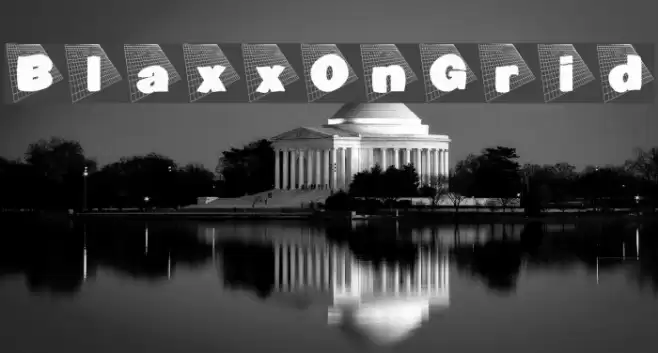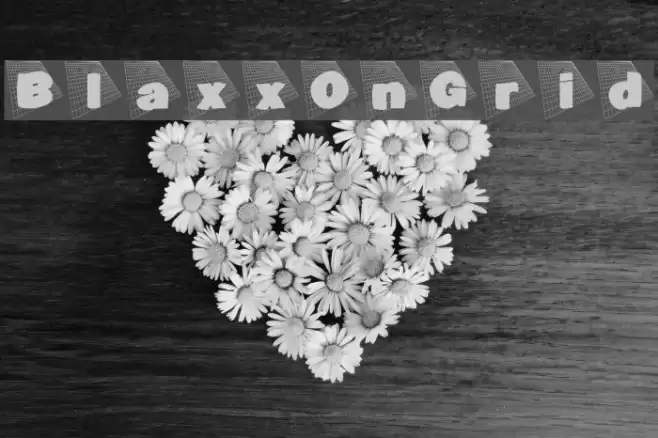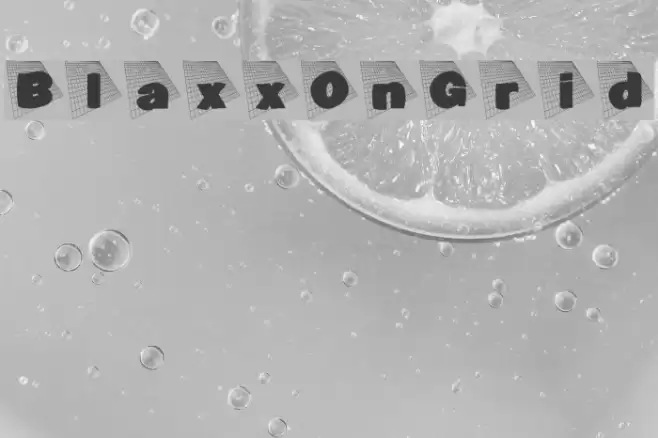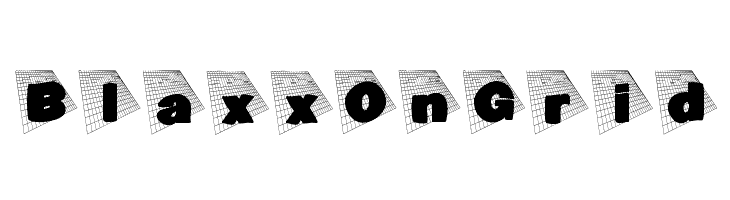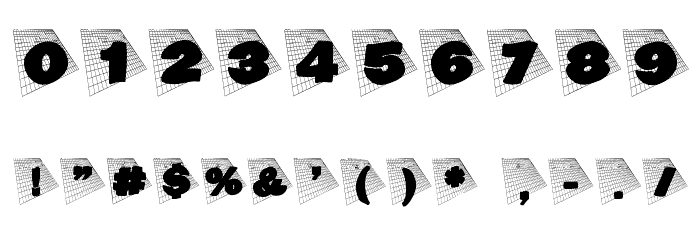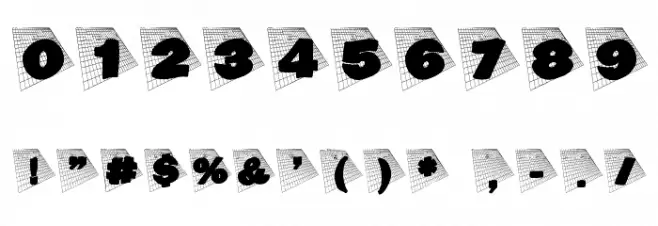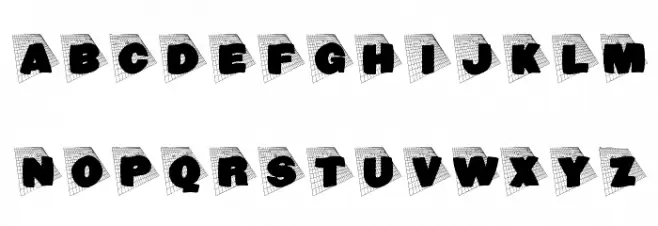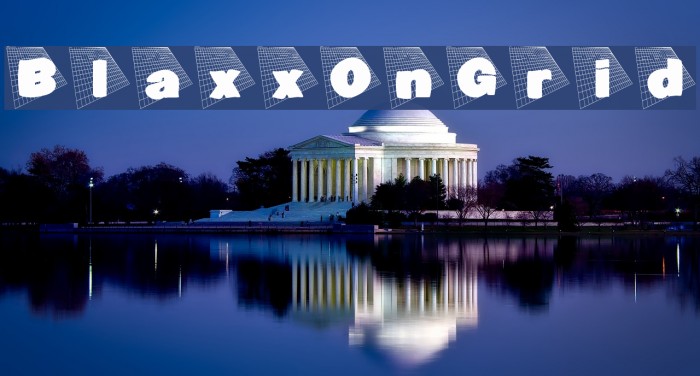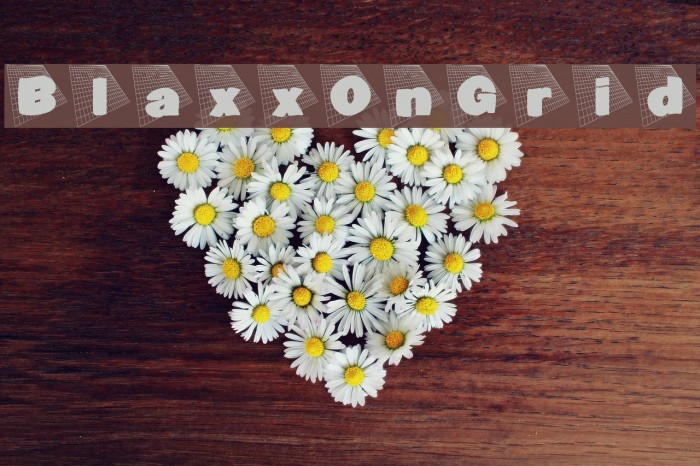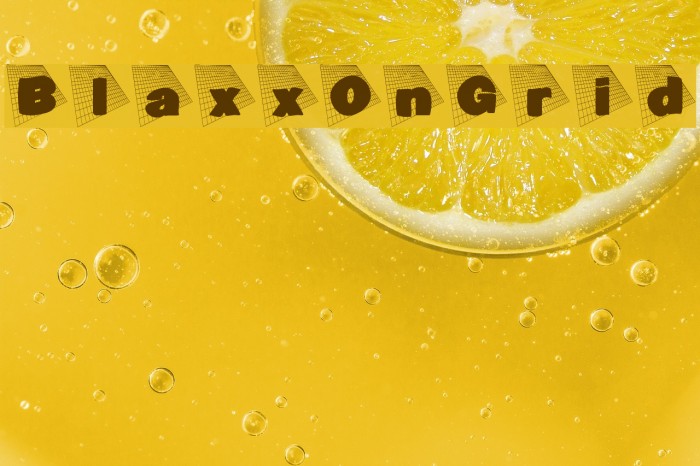
BlaxxOnGrid Font
BlaxxOnGrid Description
This font features a bold, three-dimensional style with a grid-like shadow effect that gives it a distinct, modern appearance. The characters are solid and robust, with a playful yet structured design. The uppercase and lowercase letters maintain a consistent thickness, creating a uniform look across the alphabet. The numerals and special characters follow the same design principles, ensuring cohesion throughout. The font's unique shadowing adds depth and dimension, making it stand out in any design project.
A bold, three-dimensional font with a grid shadow effect, offering a modern and playful look from Uncategorized fonts.
- Proposed Projects: Ideal for posters, headlines, branding, and any project requiring a bold, eye-catching typeface.